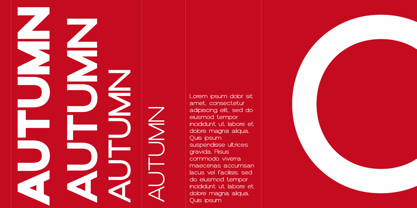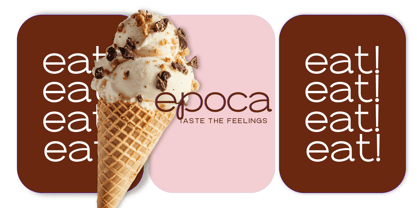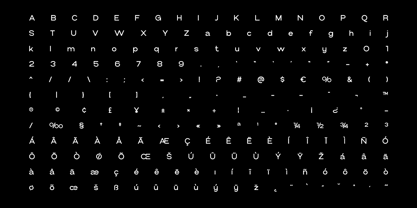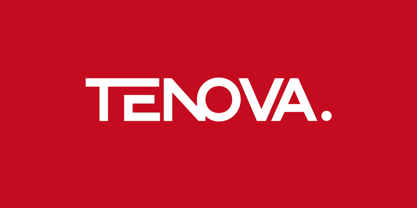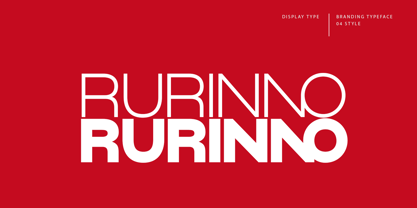
Tenova
La familia tipográfica Tenova fue diseñada por Evin Tony y publicada por FoxType. Tenova contiene 4 estilos y opciones de paquete familiar. Más información sobre esta familia
Tenova Display is a Brand New Elegant Typeface with a powerful font family. It has a dependable and uncompromising style, with controlled letterforms and modern touches. It looks amazing in logos, magazines, and movies. Tenova Font would be perfect for branding, headlines, Captions, paragraphs, and posters. The various weights allow you to experiment with a wide range of applications. It's created to make an impression without sacrificing its beauty and readability. It's shown a clean, minimalist, warmth, quirky, yet still purposed to be versatile
The Typeface includes Four Weights - Regular, Medium, SemiBold, and Bold.
Numerals and extended punctuation (200+ Glyphs). Expert kerning and quality crafting.